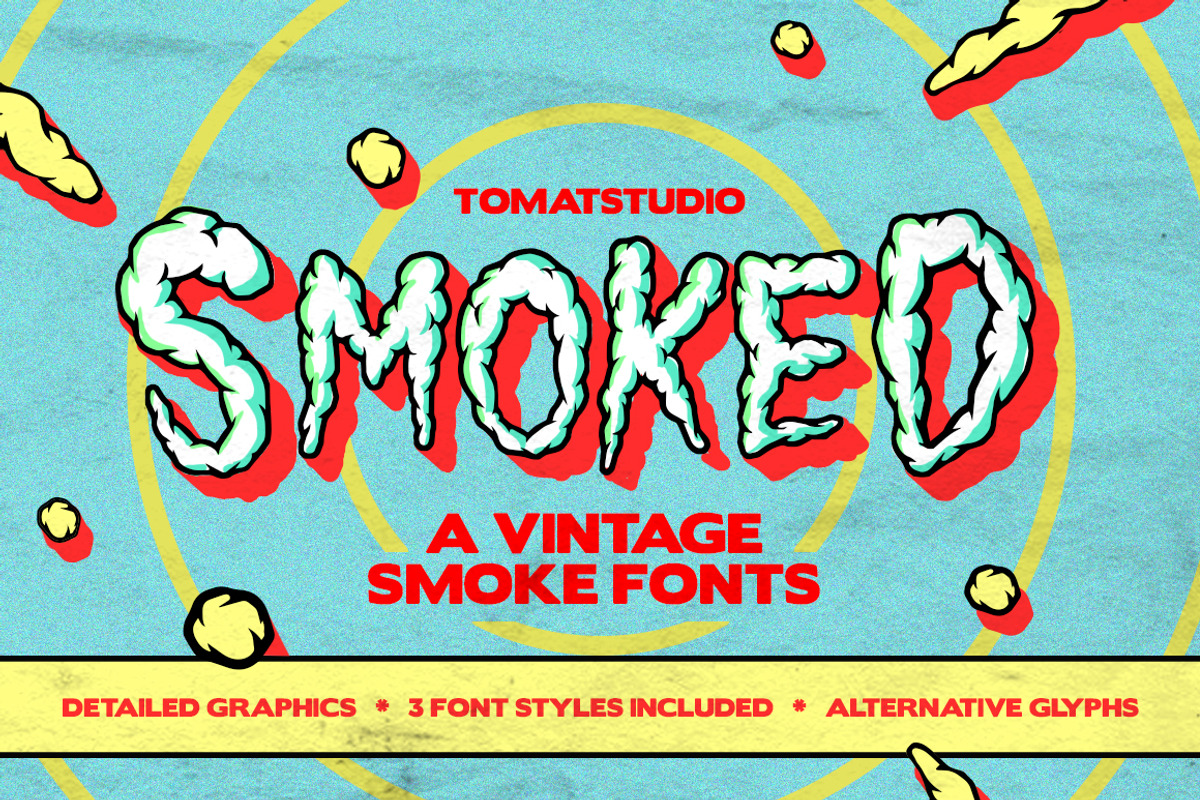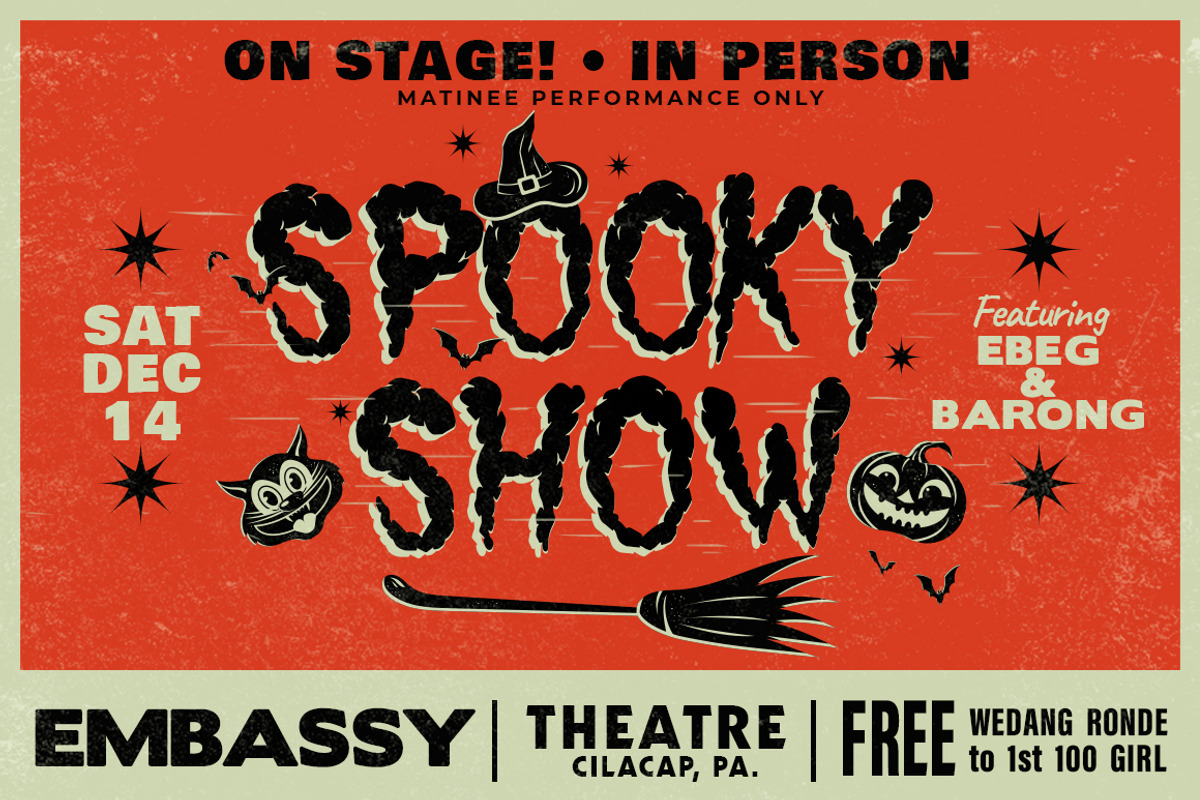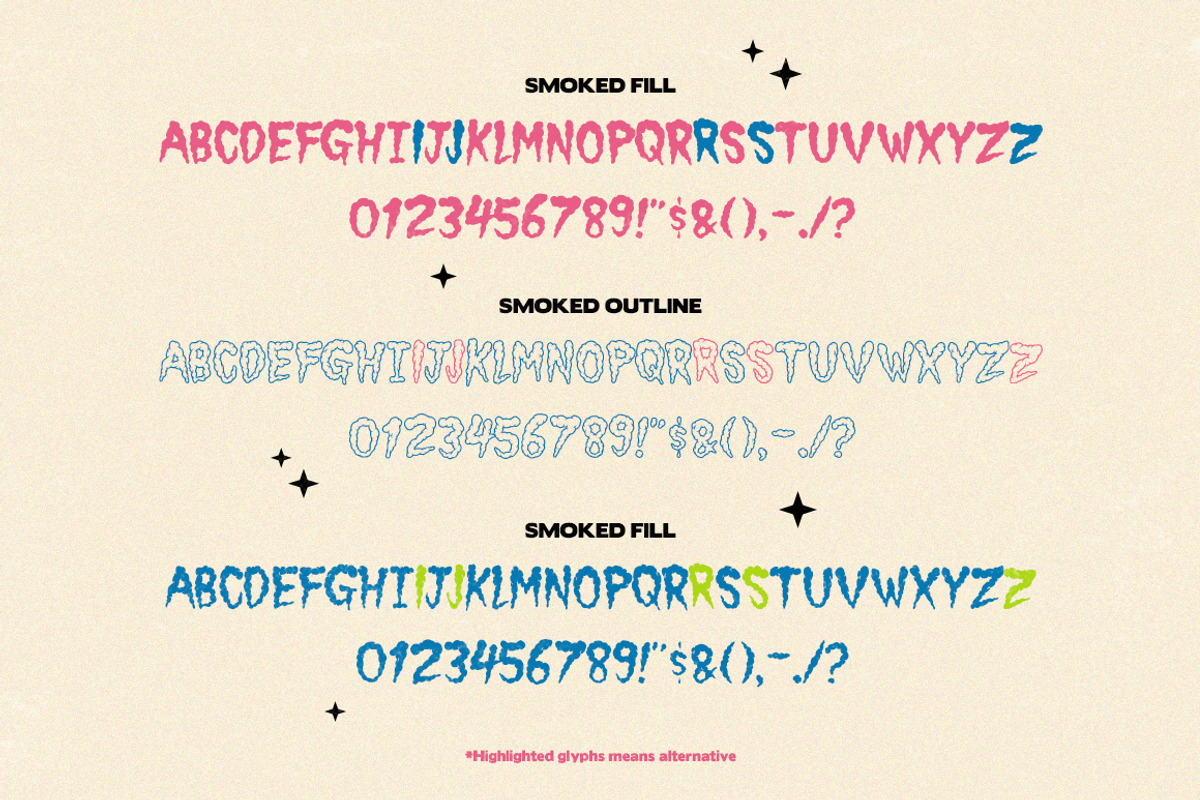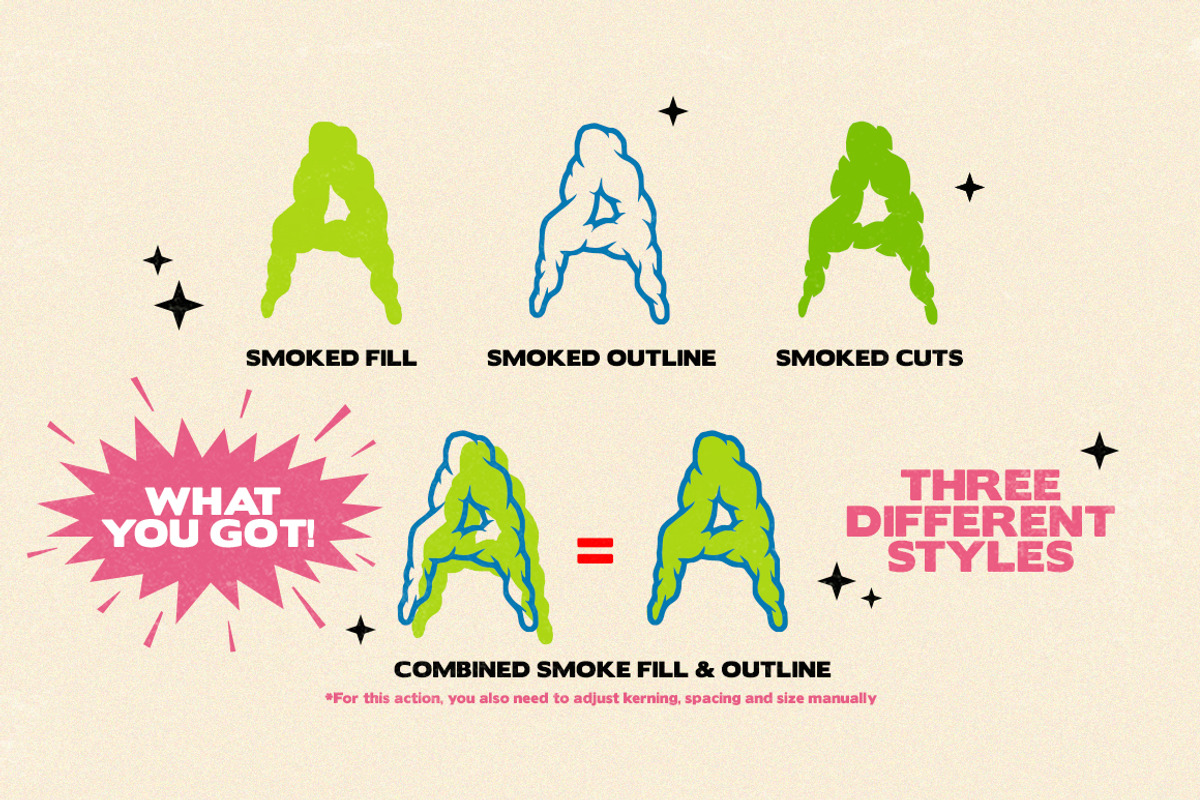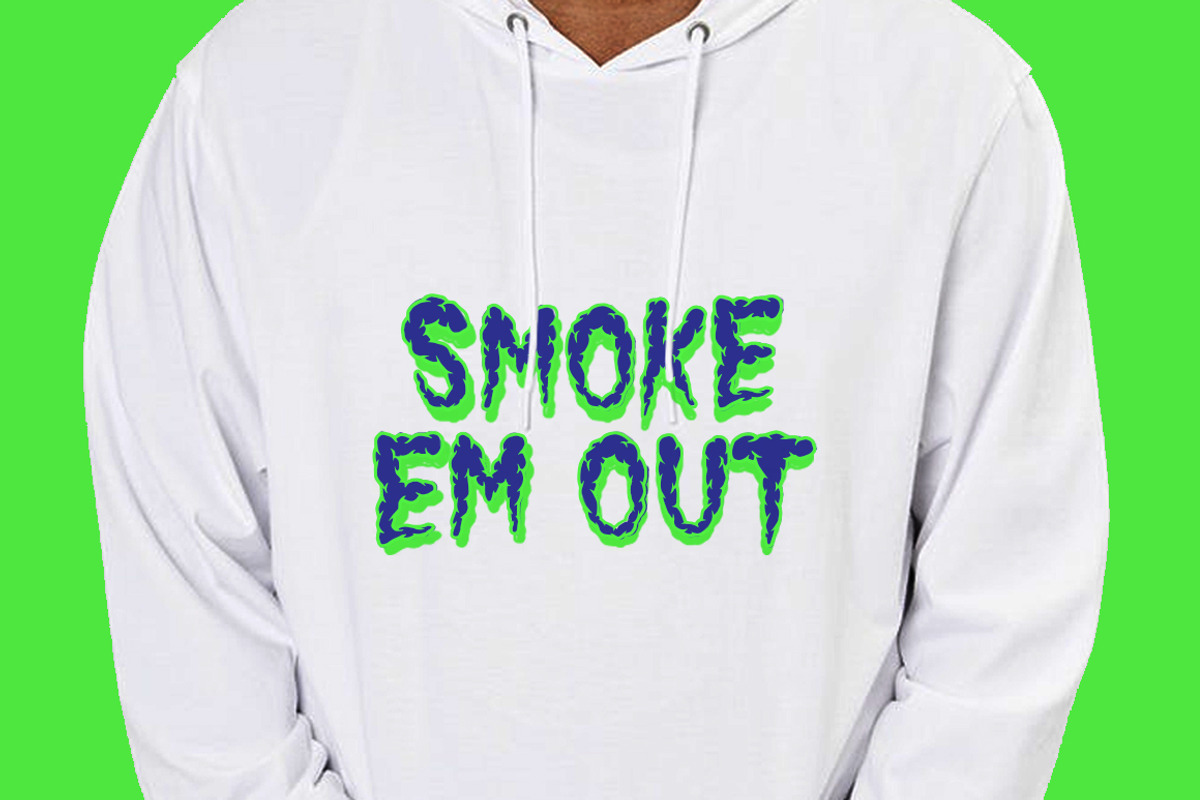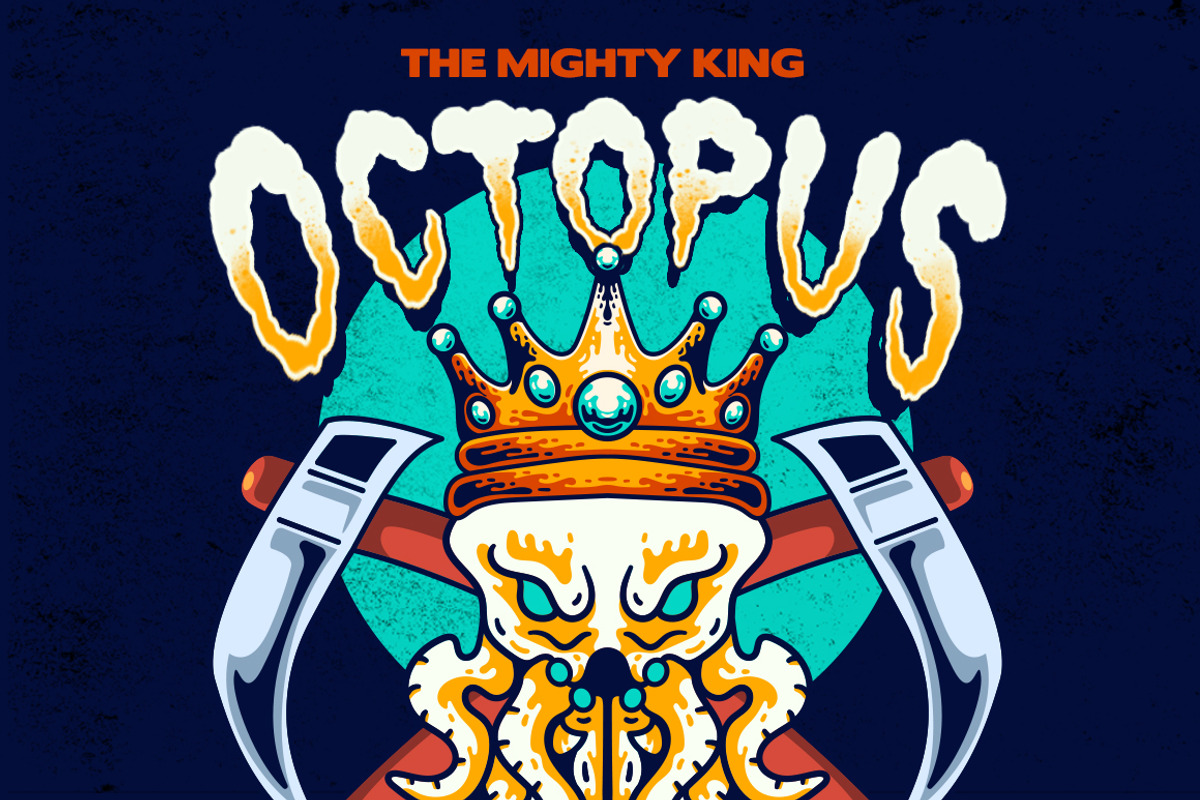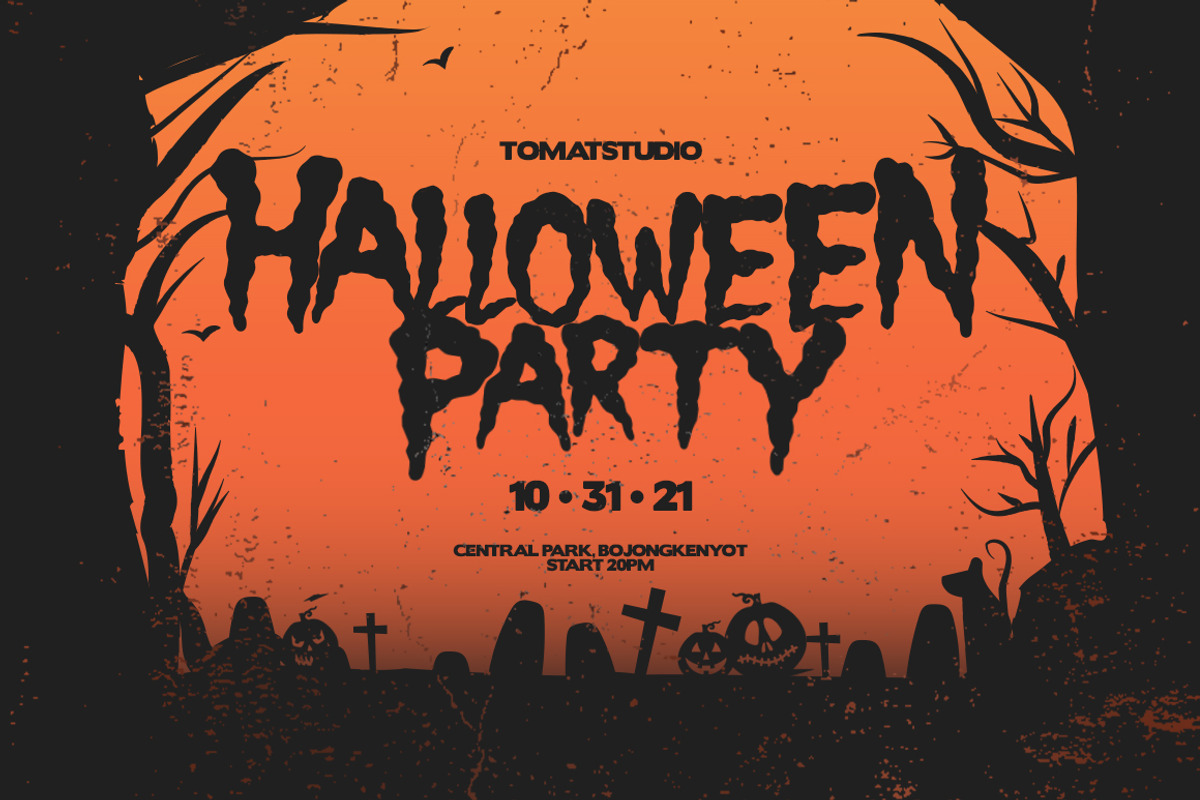
Vintage Smoked Fonts
Vintage design is always good idea, inspired from vintage horror poster, this time we created smoke or cloud style vintage fonts. We create this by handrawn in wacom and traced it into vector, the process is very long, we do this as best as we can do for the best result vintage style look. Modern design also good with this font style, you can use this for any needs.
What you will get in this package is, three fontstyle. Smoked fill, Smoked outline and Smoked Cuts, for more clear you can see the sample on the picture. If you want to combine the fonts you need to adjust kerning,spacing and size manually, because of the different size and the complexity detail of the fonts, but once you combine the font, i'm sure it won't disappoint you !! feel free to give feedback and don't forget to rate or fonts!